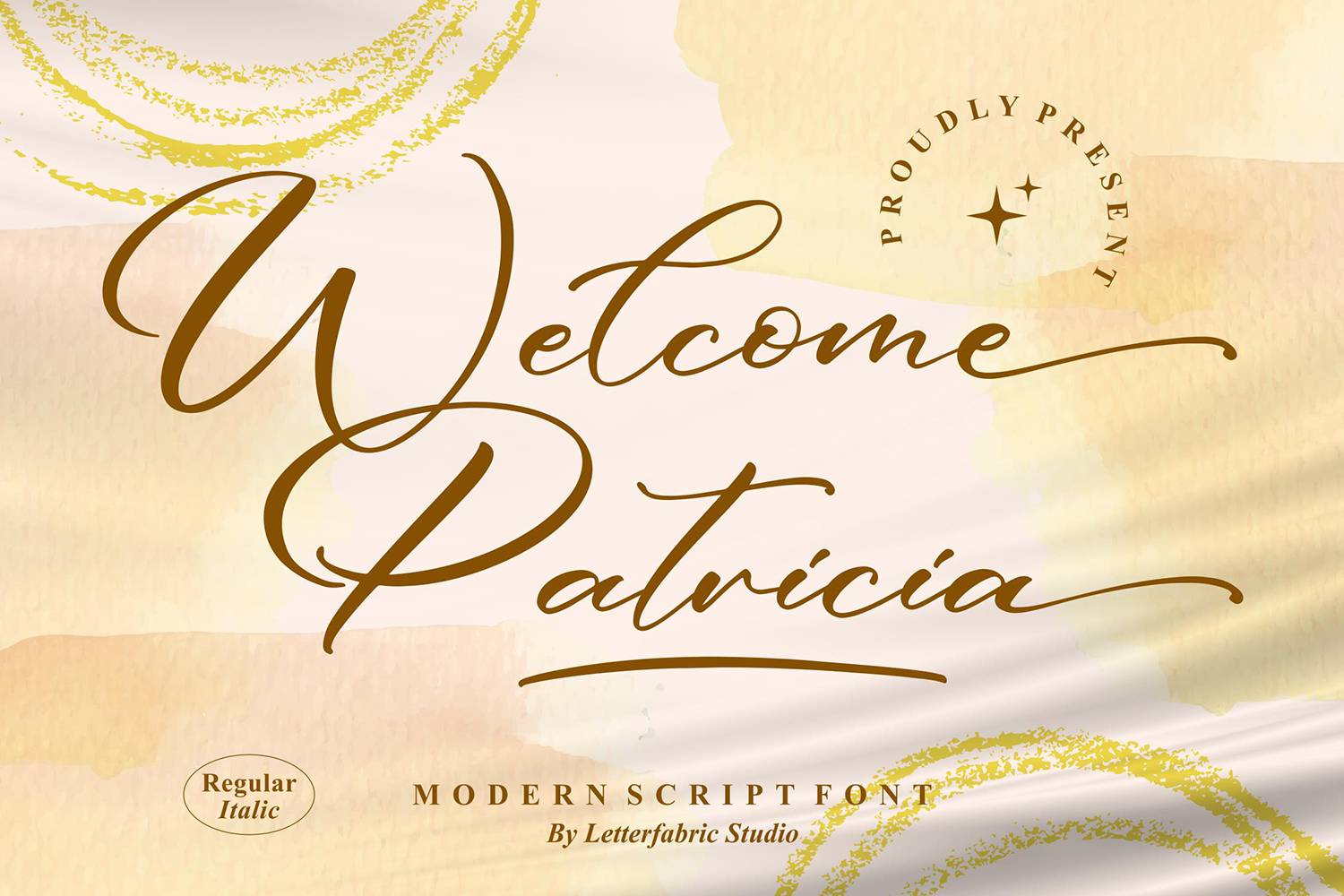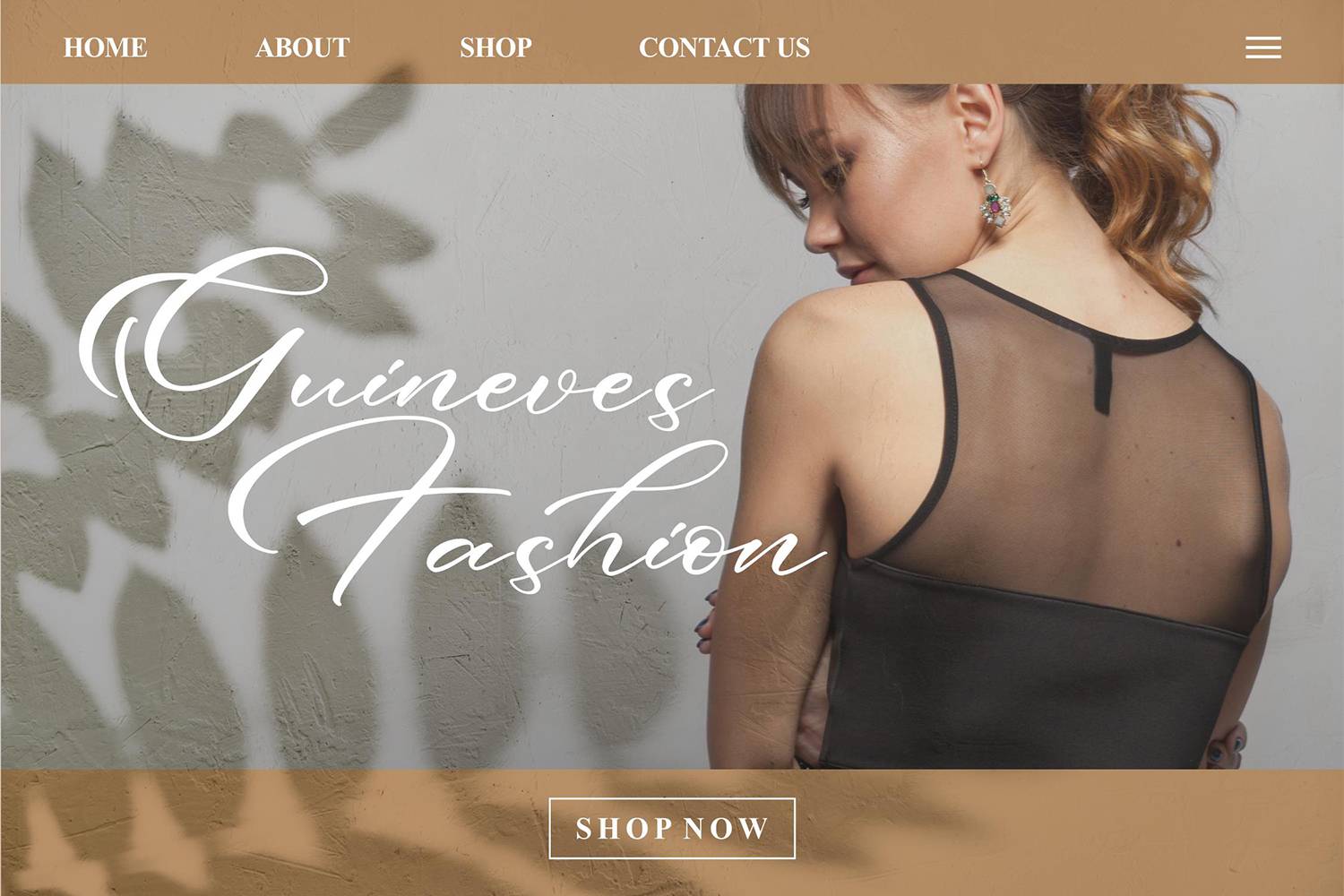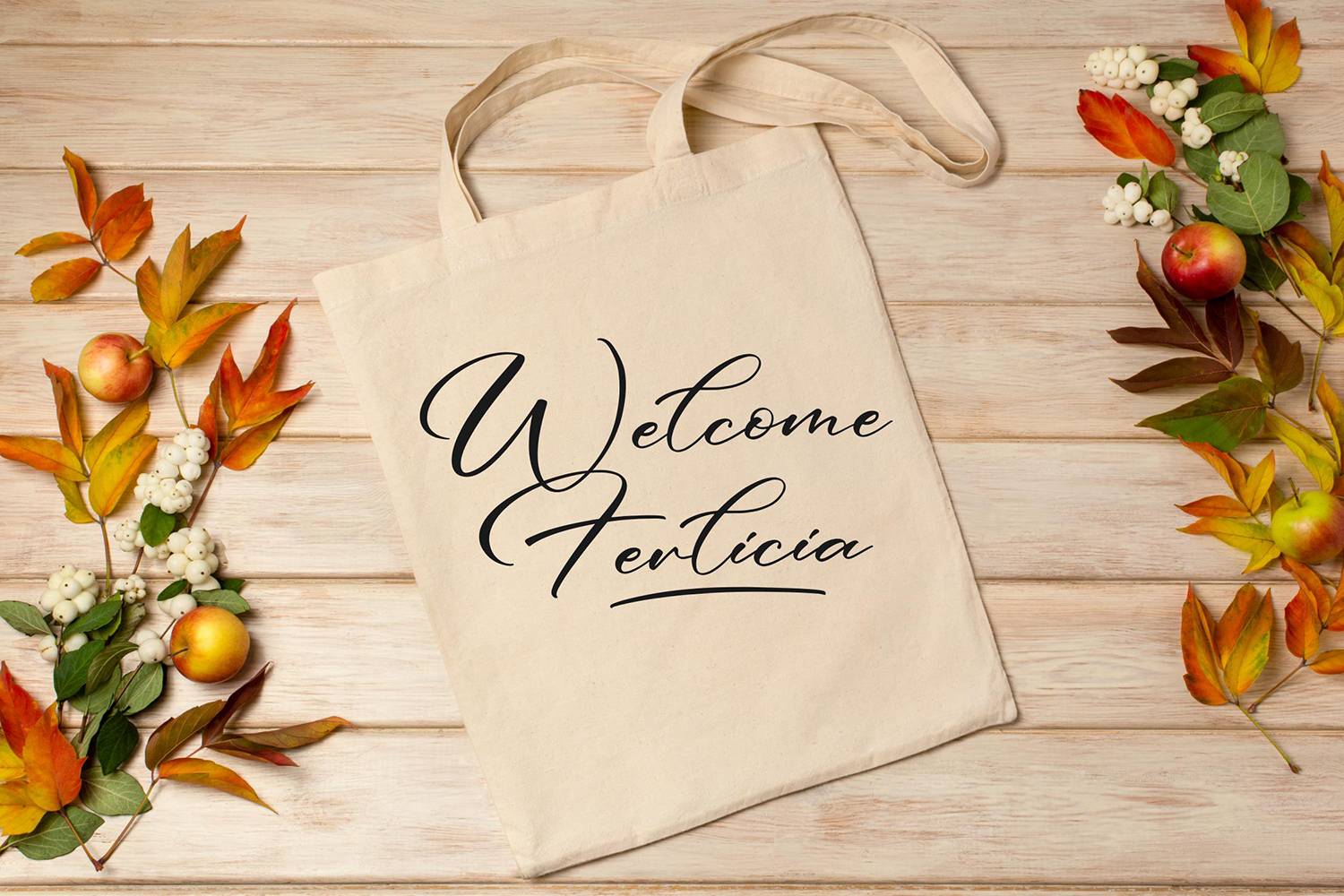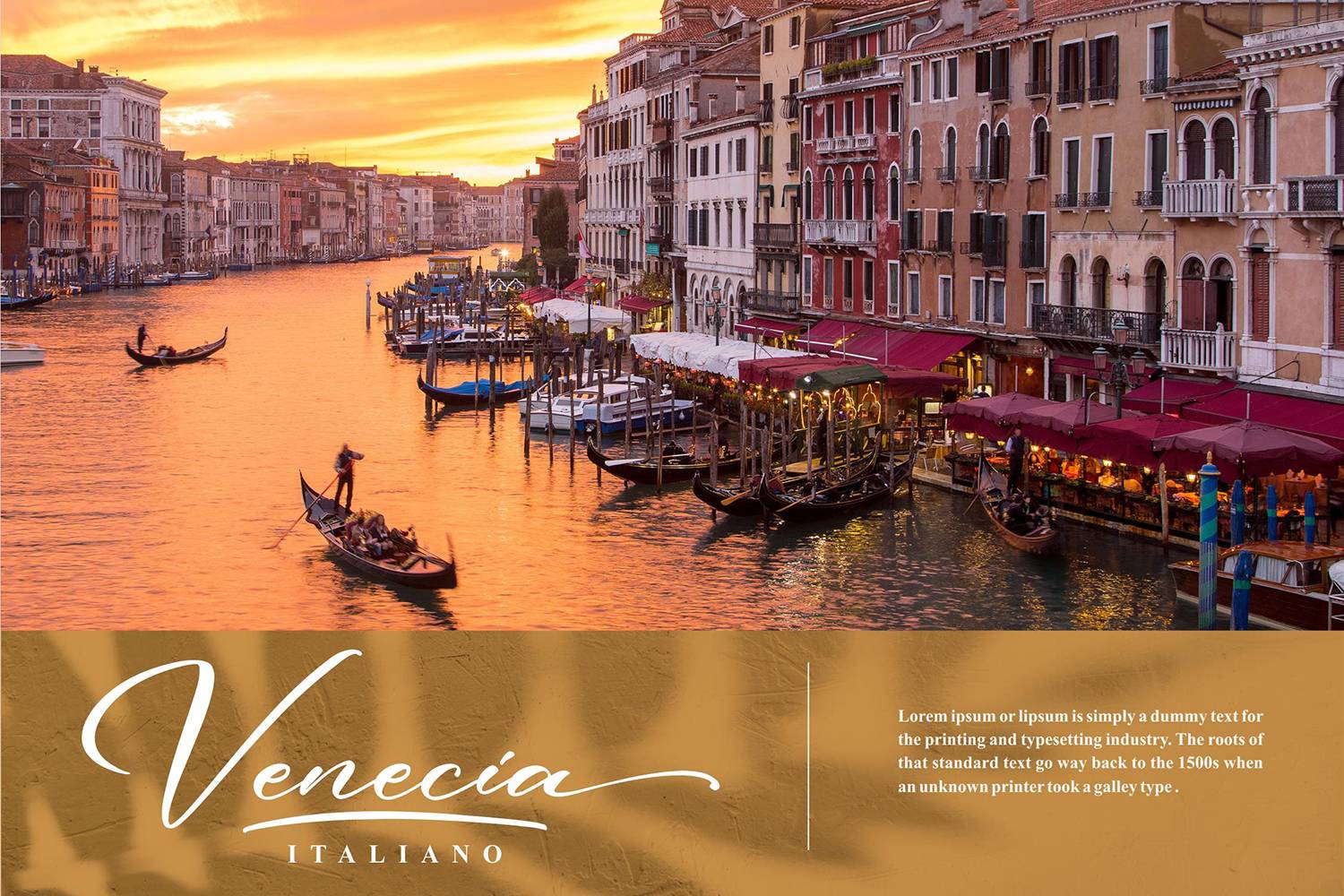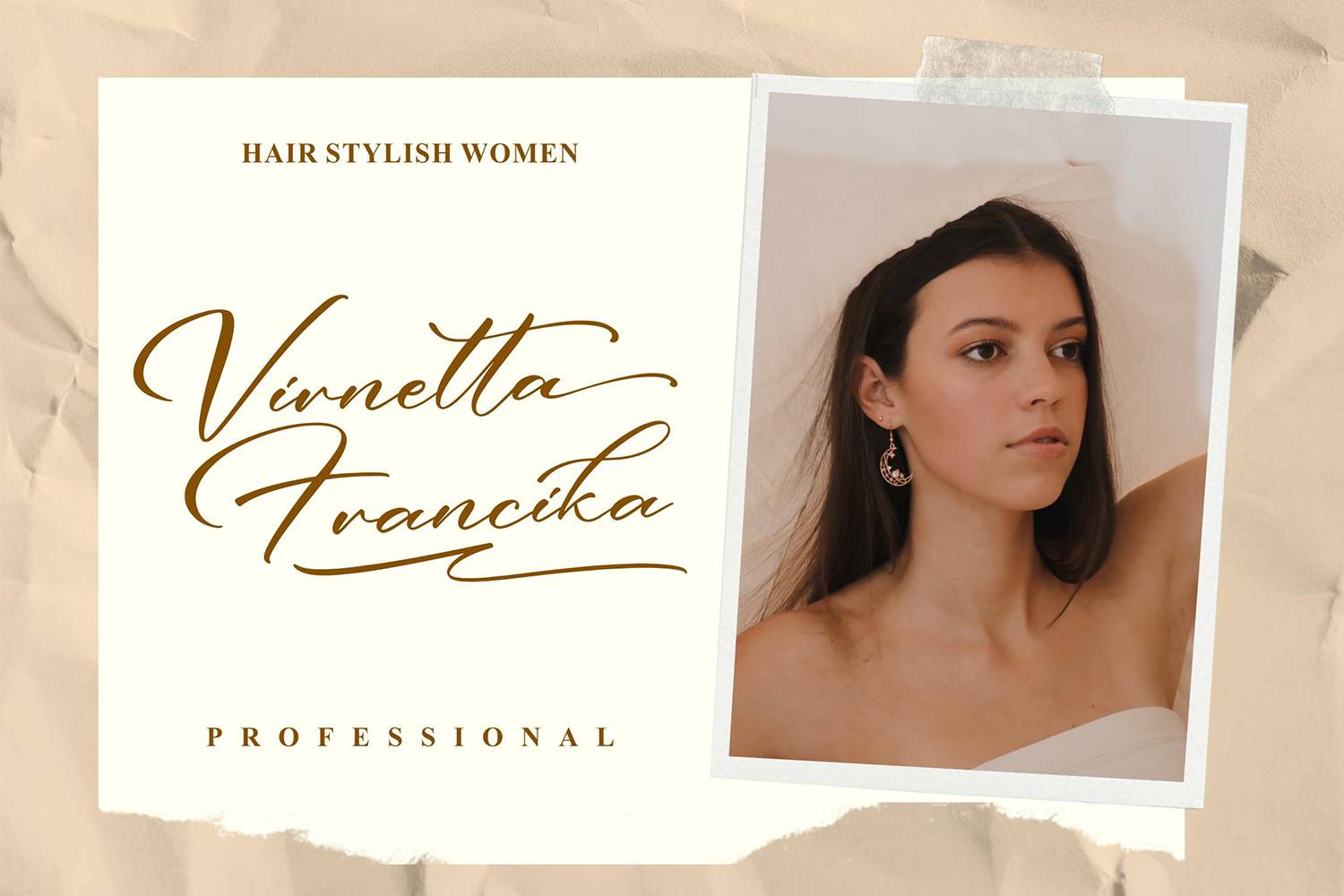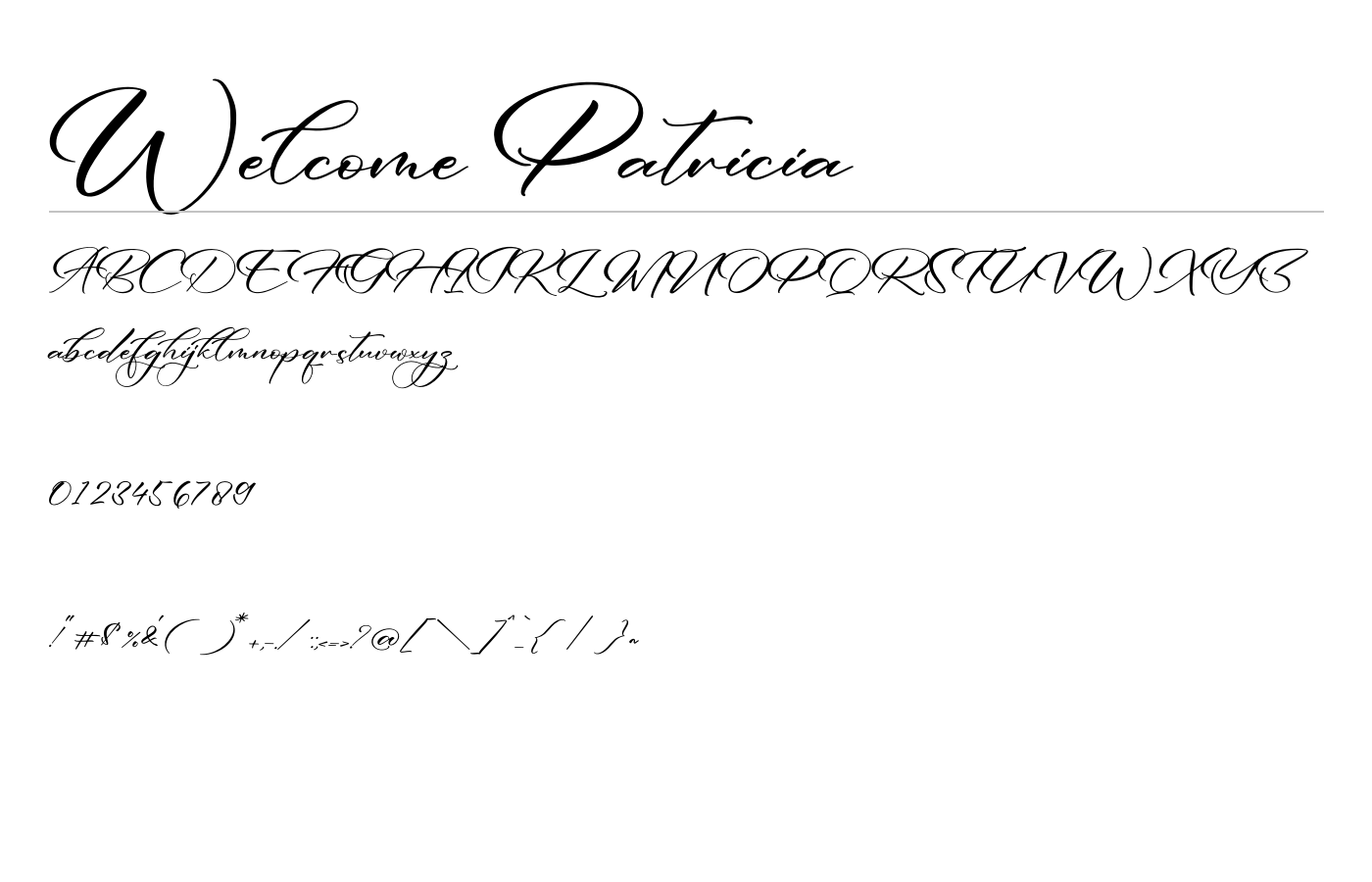
Welcome Patricia is an elegant script font with delicate, flowing strokes and a refined calligraphic style. Its high contrast between thick and thin lines and graceful letterforms make it perfect for invitations, branding, and any design seeking a sophisticated, personal touch. This font shines in luxury and fashion contexts, adding an air of charm and exclusivity to headlines and logos.
Welcome Patricia Font
About Welcome Patricia Font